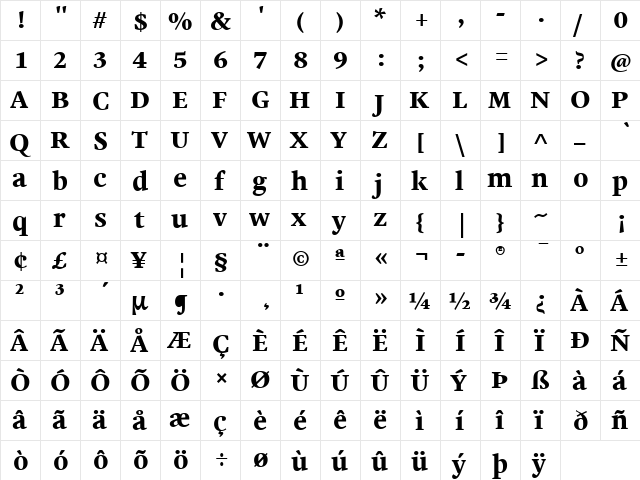
Malabar Pro Bold
Bold · Linotype GmbH Dan Reynolds ·
DesignerDan Reynolds
Design Context for Malabar Pro Typeface
Malabar Pro is a composed and adaptable typeface that performs quietly and consistently across a wide range of design contexts. Its bold stroke weight gives it real presence on the page.